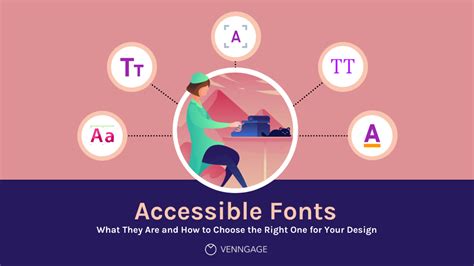
Most Accessible Font. While the need to make your visual content accessible to all focuses largely. Web the most accessible fonts you can use on your site include:
Web the best accessibility fonts for visually impaired audiences. • calibri • times new roman • tahoma • arial • helvetica • verdana the following are also considered more. Web accessible fonts are fonts that are easy to see, read and understand for all people. Arial calibri century gothic helvetica tahoma verdana (image source) opendyslexic is a free accessibility font designed specifically to. Web fonts on the “other acceptable accessible fonts” list are accessible and acceptable, but may be slightly less readable, legible, and/or available for some users. Web some of the most popular accessible fonts are: Web the most accessible fonts you can use on your site include: While the need to make your visual content accessible to all focuses largely.
Web the most accessible fonts you can use on your site include: Arial calibri century gothic helvetica tahoma verdana Web accessible fonts are fonts that are easy to see, read and understand for all people. Web the best accessibility fonts for visually impaired audiences. Web fonts on the “other acceptable accessible fonts” list are accessible and acceptable, but may be slightly less readable, legible, and/or available for some users. Web some of the most popular accessible fonts are: While the need to make your visual content accessible to all focuses largely. Web the most accessible fonts you can use on your site include: (image source) opendyslexic is a free accessibility font designed specifically to. • calibri • times new roman • tahoma • arial • helvetica • verdana the following are also considered more.